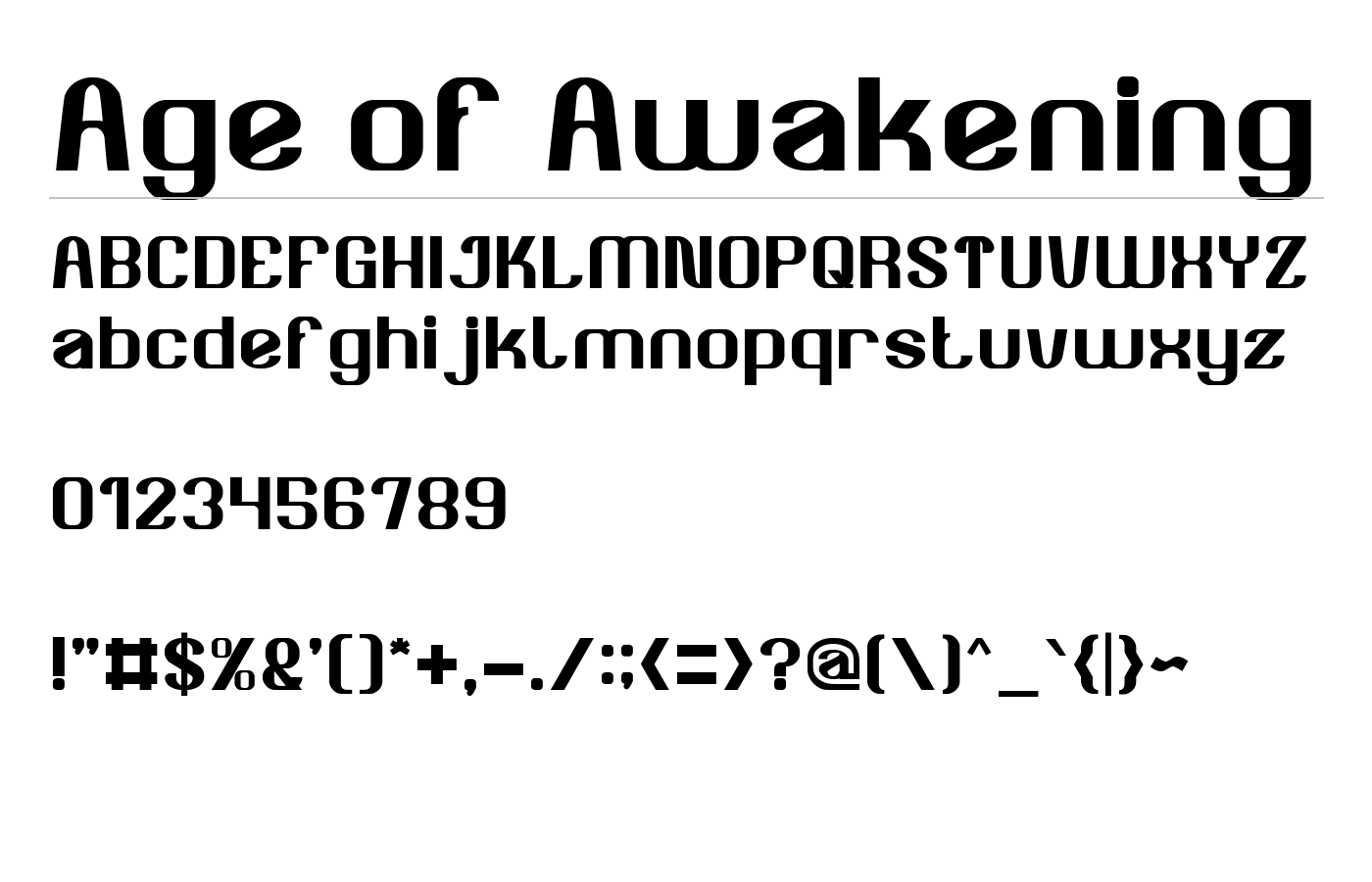
Age of Awakening is a bold, condensed sans serif font with a modern, slightly futuristic vibe. Its tall x-height and unique angular letterforms create a strong, distinctive look that works well for headlines, logos, and branding that aims to stand out with a contemporary edge. Perfect for projects needing a confident and stylish display font with a touch of uniqueness.
Age of Awakening Font
About Age of Awakening Font
| Font family | Age of Awakening Font |